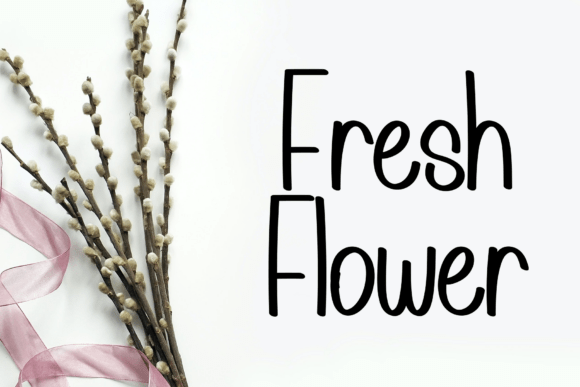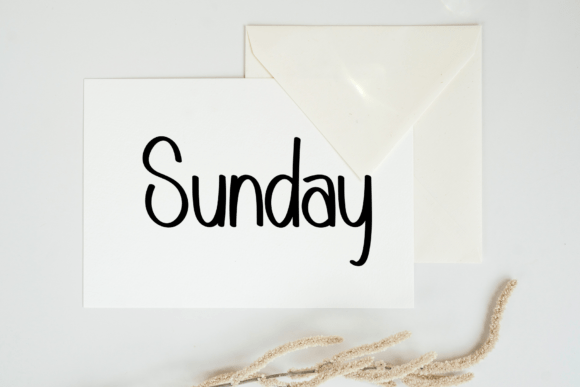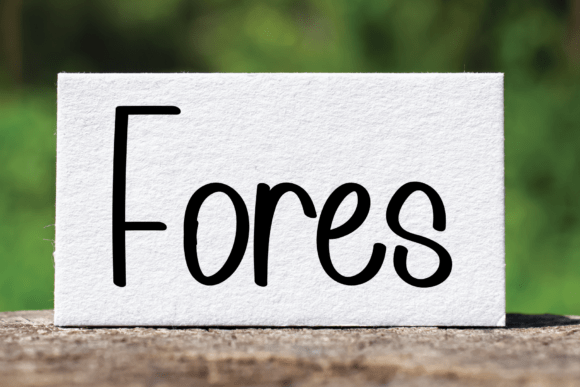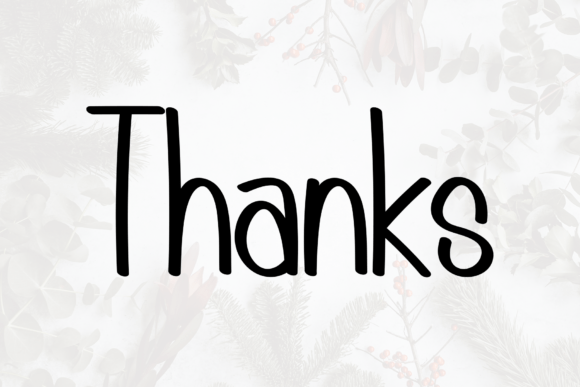
Introducing Blushie Font: The Sweet and Beautiful Handwritten Font for Your Design Projects
Are you a designer or crafter looking for a font that can add a touch of warmth and coziness to your design projects? Look no further than Blushie Font! This sweet and beautiful handwritten font is perfect for creating a variety of designs, from invitations and greeting cards to branding and packaging.
What Makes Blushie Font So Special?
Blushie Font features characters that dance along the baseline, giving it a playful and whimsical feel. The font’s handwritten style is both elegant and approachable, making it perfect for designs that require a personal touch. Whether you’re creating a design for a client or working on a personal project, Blushie Font is sure to add a cozy accent that will make your design stand out.
Key Features of Blushie Font
- Handwritten style: Blushie Font features a beautiful handwritten style that is both elegant and approachable.
- Characters that dance along the baseline: The font’s characters have a playful and whimsical feel, making it perfect for designs that require a personal touch.
- Cozy accent: Blushie Font is perfect for adding a warm and cozy accent to any design project.
- Versatile: The font is suitable for a variety of design projects, including invitations, greeting cards, branding, and packaging.
How to Use Blushie Font in Your Design Projects
Blushie Font is easy to use and can be incorporated into a variety of design projects. Here are a few ideas to get you started:
- Invitations and greeting cards: Use Blushie Font to create beautiful and personalized invitations and greeting cards for special occasions.
- Branding and packaging: Add a touch of warmth and coziness to your brand’s packaging and marketing materials with Blushie Font.
- Blog and social media graphics: Use Blushie Font to create eye-catching blog and social media graphics that will help your content stand out.
Tips for Getting the Most Out of Blushie Font
Here are a few tips for getting the most out of Blushie Font:
- Experiment with different colors and textures: Blushie Font looks great in a variety of colors and textures, so don’t be afraid to experiment and find the perfect combination for your design.
- Pair with other fonts: Blushie Font pairs well with other fonts, so try combining it with a bold font for headings and a clean font for body text.
- Use it sparingly: Blushie Font is a statement font, so use it sparingly to add emphasis and interest to your design.
Blushie Font is a sweet and beautiful handwritten font that is perfect for adding a touch of warmth and coziness to your design projects. With its playful and whimsical feel, Blushie Font is sure to make your designs stand out. Whether you’re a designer or crafter, Blushie Font is a great addition to your font collection.